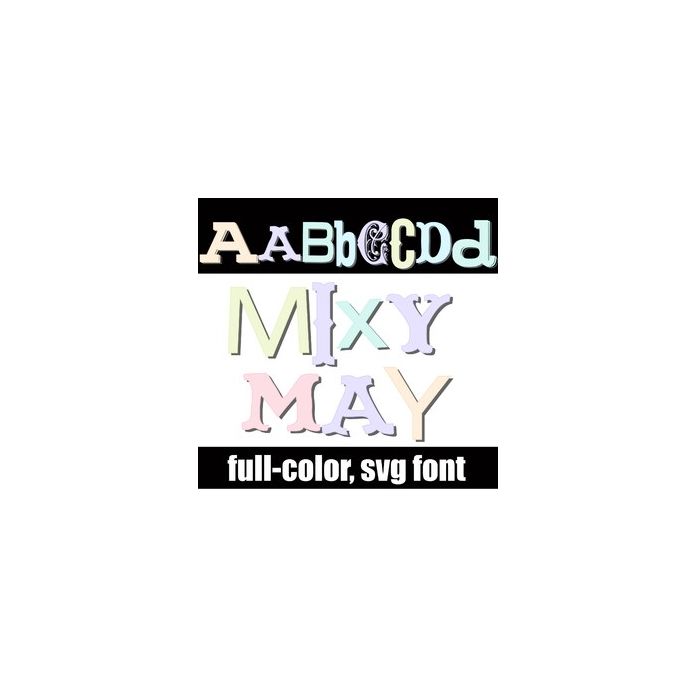
This full-color font features a mix of lettering/font styles and pastel colors. There is a secondary alt case of both upper and lowercase letters in additional colors that you can access through Silhouette's glyph map.